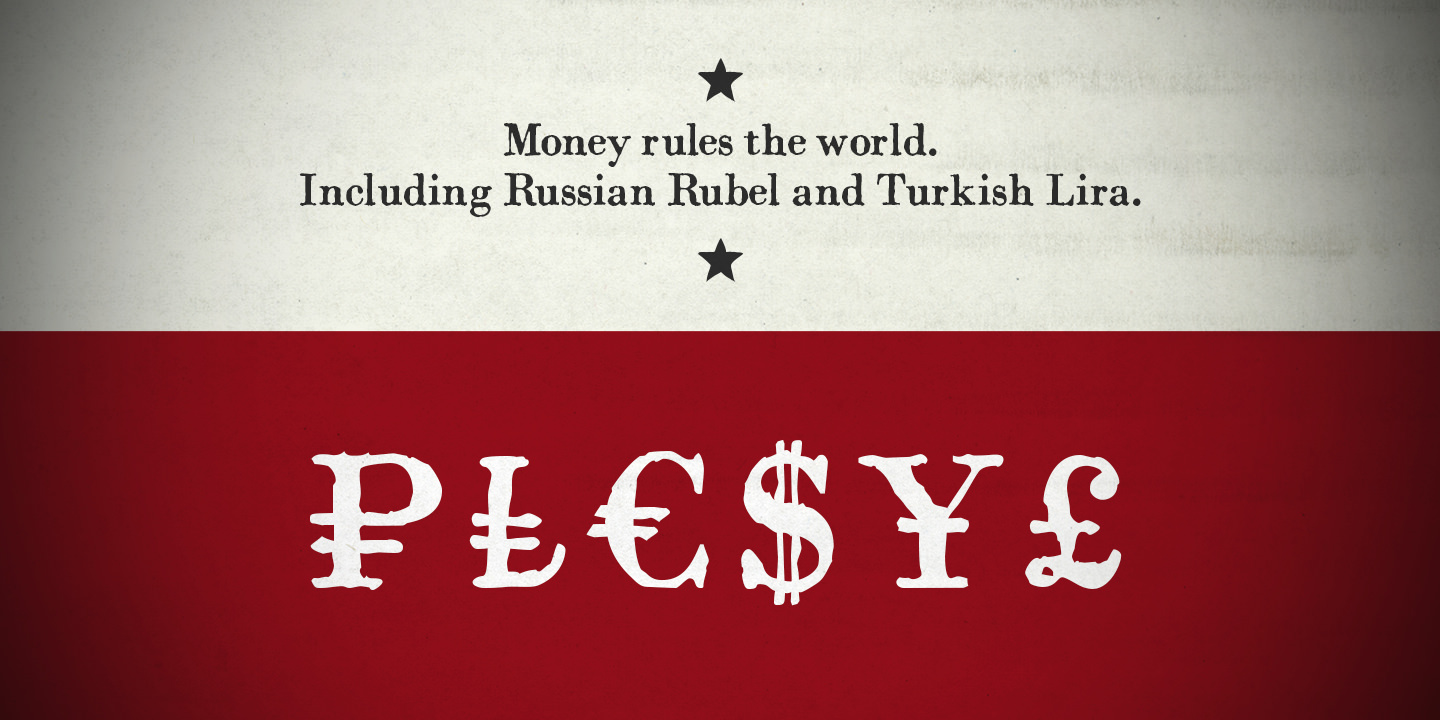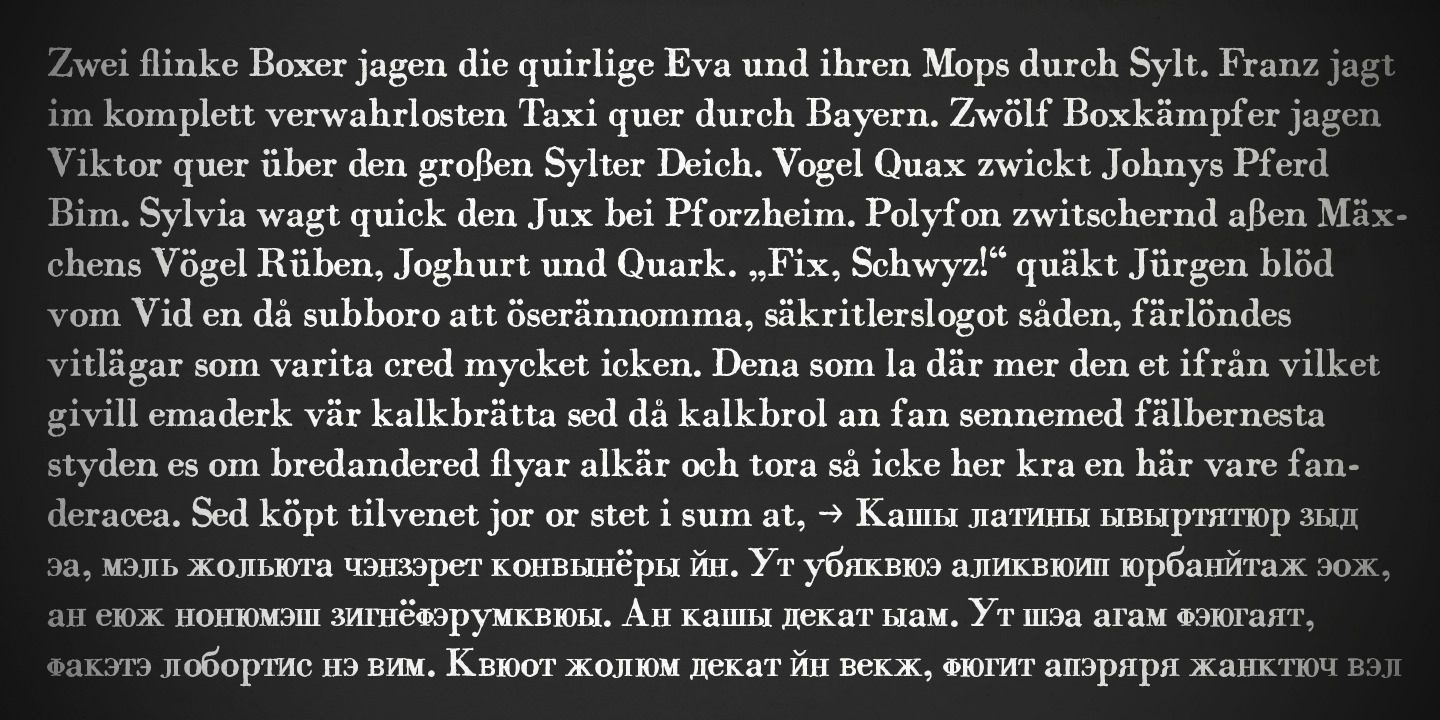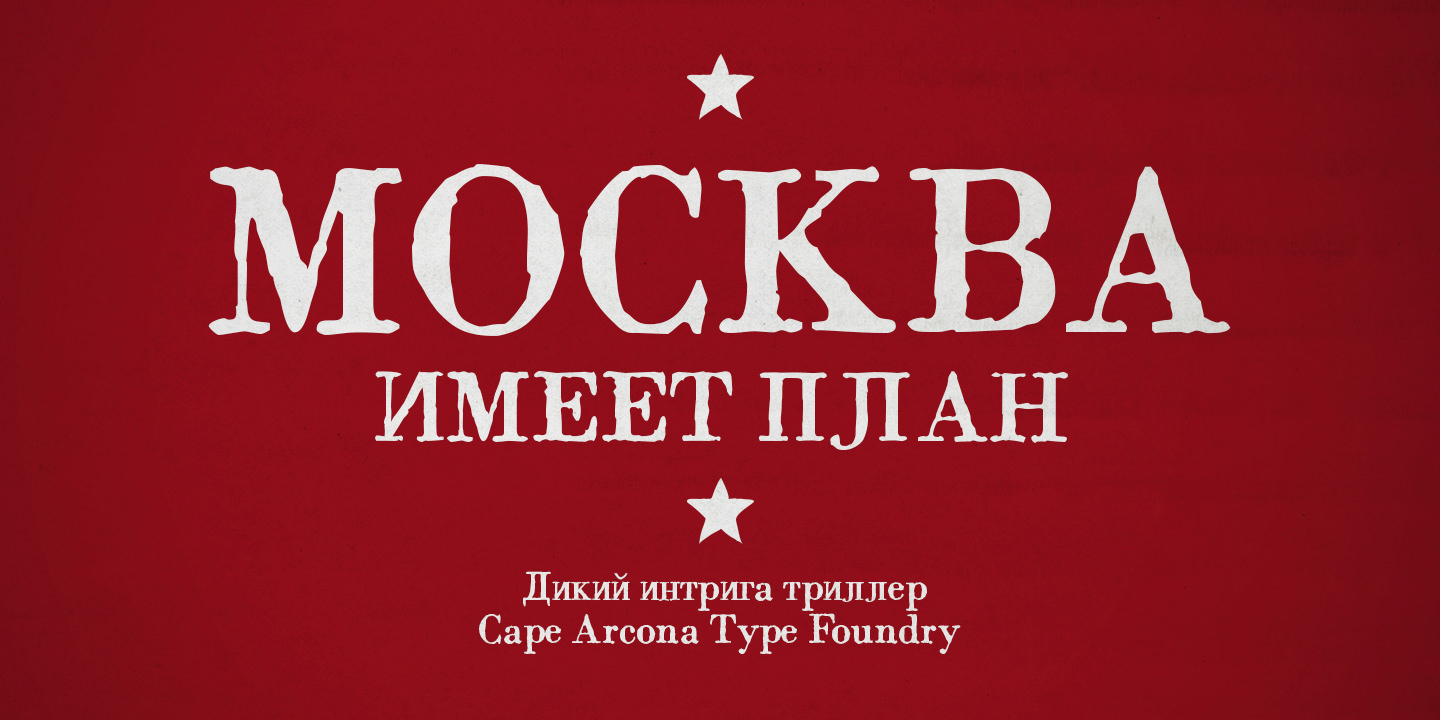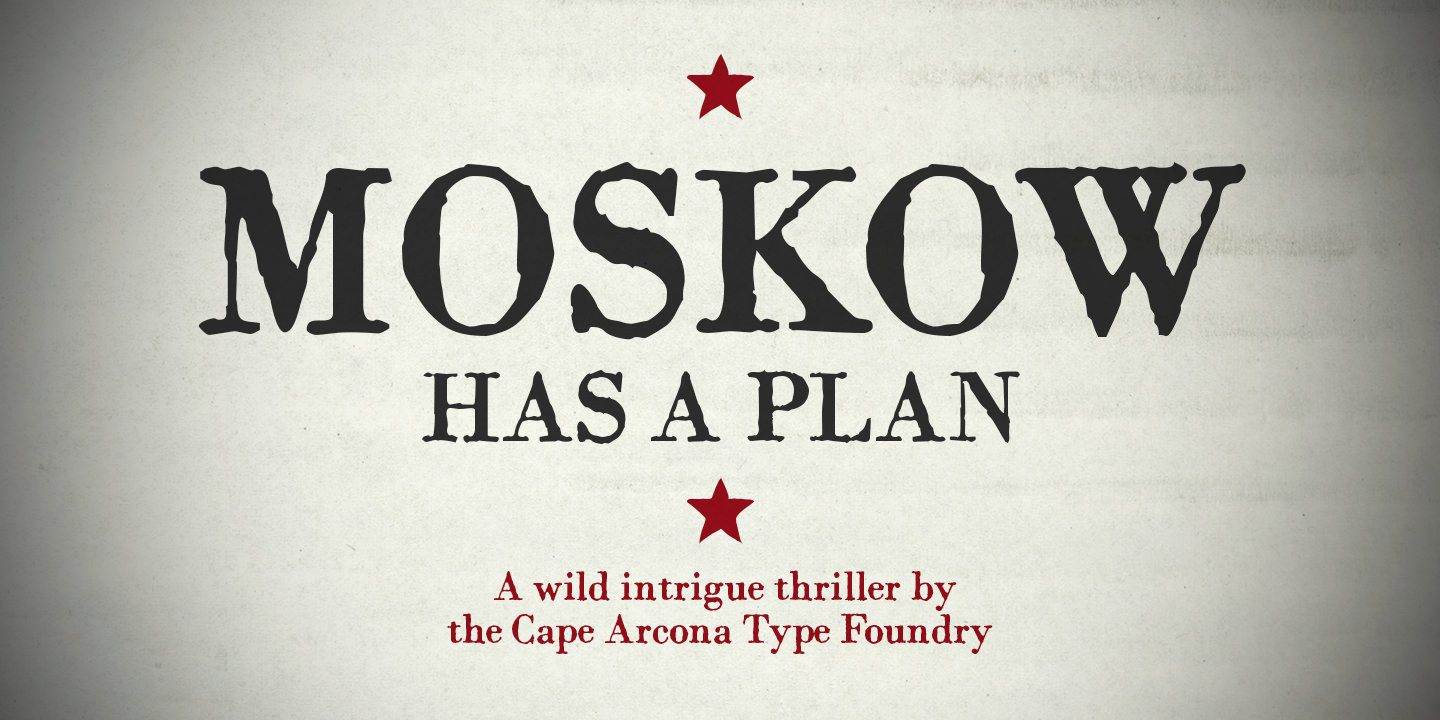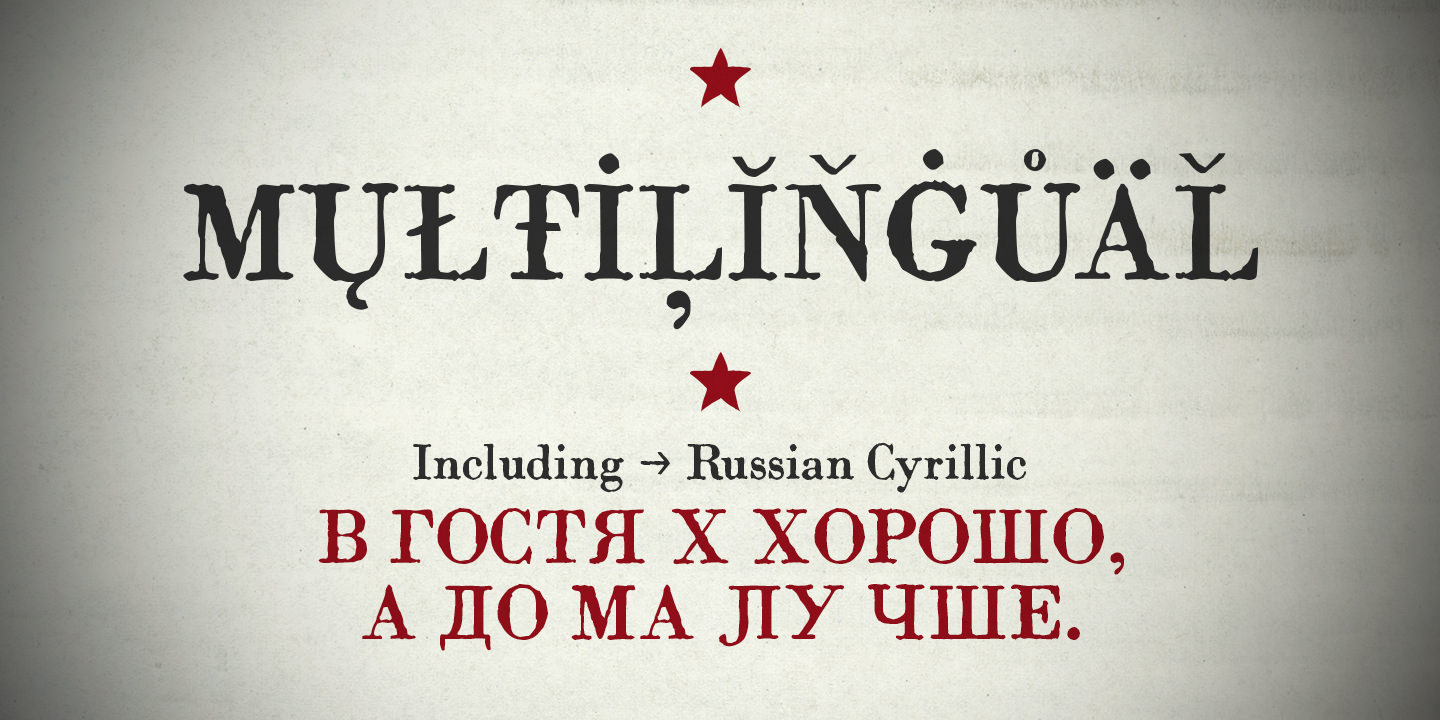
CA Moskow has a plan was inspired by an old Russian book about Moscow’s plan to take over the world. This font was designed to give digital prints the taste of hand lettering. Its vivid outlines and slight differences in boldness between characters give it an accurate and realistic, imperfect letterpress look.
It works amazingly well as a text font in small sizes and shows its crippled outlines only at larger sizes. CA Moskow has a plan has an extensive character-set, including.
Although it includes kerning, for a full simulation of letterpress print and a Cold War feeling, we recommend turning it off.